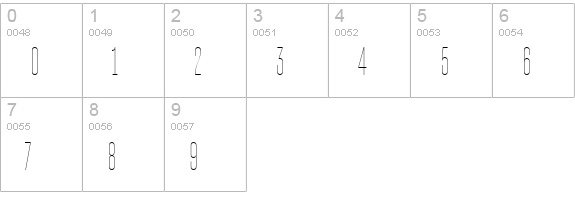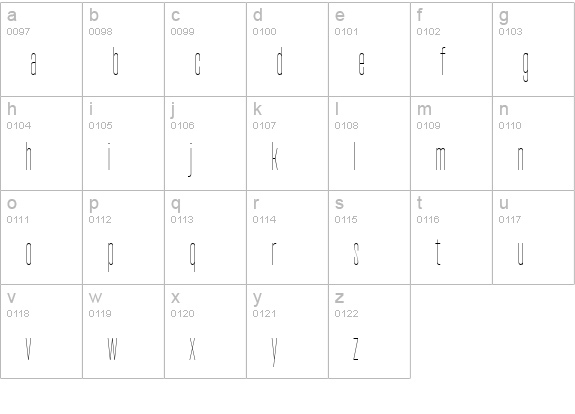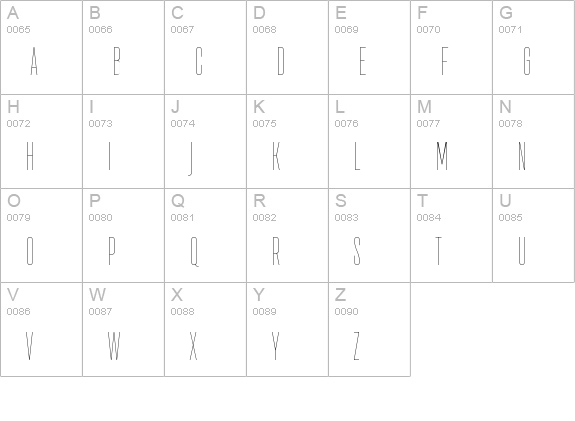
TT Bluescreens Thin is a delicate, low-contrast variant in the TT typeface family \xE2\x80\x94 well suited to fashion editorial, minimal branding, and high-contrast display.
TT Bluescreens Thin font is a sleek and modern typeface that exudes sophistication and elegance. Its thin and stylish design makes it perfect for a wide range of projects, from branding and advertising to editorial design and more. The font features clean lines and a contemporary feel that will add a touch of class to any design. Best of all, TT Bluescreens Thin font is available for free download at FontsMarket.com. This means you can easily access this high-quality font without having to break the bank. Whether you're a professional designer looking for a new addition to your font library or a hobbyist looking to add a unique touch to your projects, TT Bluescreens Thin font is sure to impress. Download it today and take your designs to the next level!